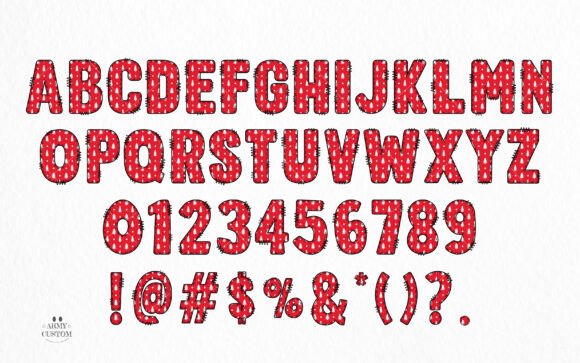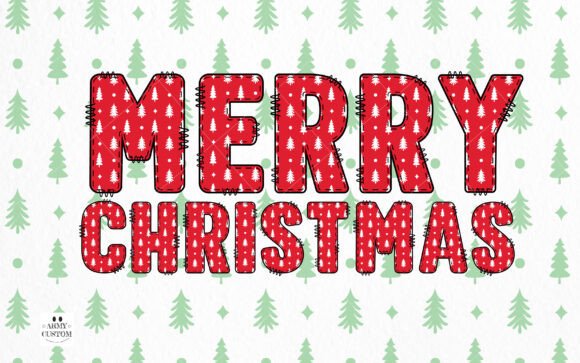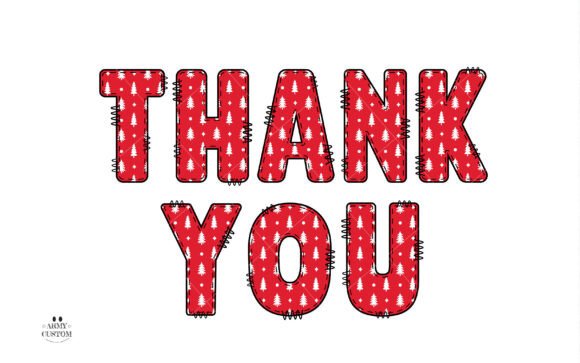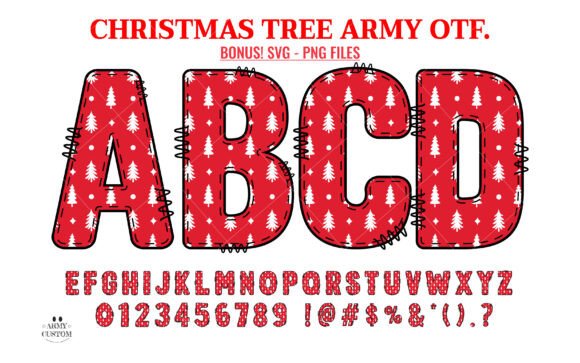
Introducing Christmas Tree Army Font: The Ultimate Holiday Typography
Are you looking for a unique and festive font to add to your holiday designs? Look no further than the Christmas Tree Army Font! This specially designed typography is perfect for capturing the spirit of the holiday season, with each letter and stroke embodying the warmth and joy of Christmas.
A Festive Font Like No Other
The Christmas Tree Army Font is a one-of-a-kind design that is sure to bring a touch of festive cheer to any project. Whether you’re a designer, crafter, or simply someone who loves the holiday season, this font is sure to delight. With its unique and creative design, it’s the perfect way to add a personal touch to your holiday cards, decorations, and gifts.
Compatibility and Uses
The Christmas Tree Army Font is available in both black and color versions, making it versatile for a variety of projects. The black version of the font is compatible with Cricut Design Space and other cutting machines, making it perfect for crafters and makers who want to create custom holiday decorations and gifts.
What Makes Christmas Tree Army Font So Special?
So, what makes the Christmas Tree Army Font so special? For starters, its unique design is sure to capture the attention of anyone who sees it. Each letter is carefully crafted to embody the spirit of the holiday season, with intricate details and festive flair.
But it’s not just the design that makes this font so special – it’s also incredibly versatile. Whether you’re creating holiday cards, decorations, or gifts, this font is sure to add a touch of festive cheer to your project. And with its compatibility with a range of design programs and cutting machines, you can use it to create a wide variety of projects.
Tips for Using Christmas Tree Army Font
If you’re excited to start using the Christmas Tree Army Font in your holiday projects, here are a few tips to keep in mind:
• Experiment with different colors: While the color version of the font is only compatible with certain design programs, you can still experiment with different colors and effects using the black version. Try pairing it with holiday-themed colors like red, green, and gold for a festive look.
• Use it for a variety of projects: The Christmas Tree Army Font is versatile enough to use for a wide range of projects, from holiday cards and decorations to gifts and more. Don’t be afraid to get creative and try it out on different types of projects.
The Christmas Tree Army Font is a unique and festive typography that’s perfect for capturing the spirit of the holiday season. With its intricate design and versatile compatibility, it’s sure to become a go-to font for designers and crafters alike. Whether you’re creating holiday cards, decorations, or gifts, this font is sure to add a touch of festive cheer to your project. So why wait? Download the Christmas Tree Army Font today and start creating your own holiday magic!
• Unique and festive design
• Available in black and color versions